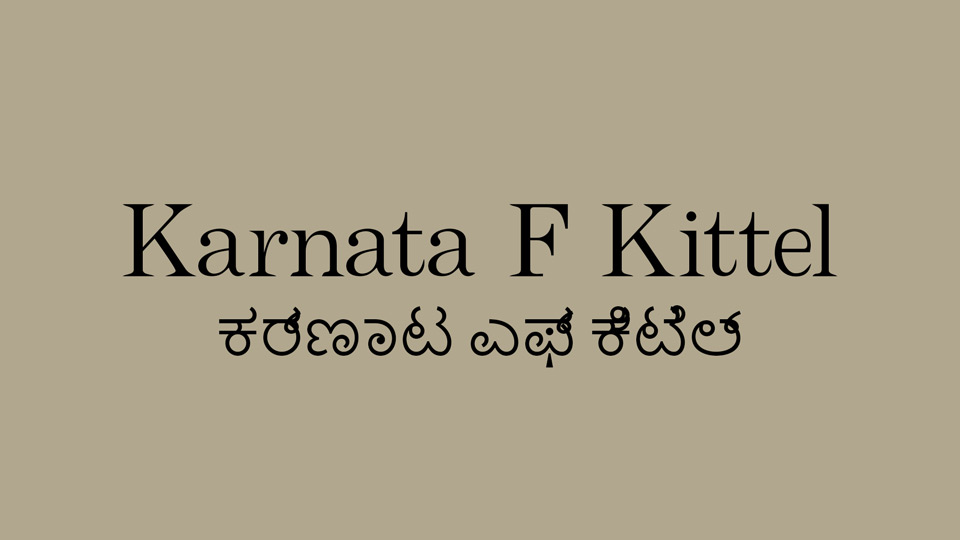
Karnata F Kittel font, a digital revival of an existing foundry typeface created in erstwhile Basel Mission Press Mangalore between 1830-1900. This font is an attempt to re-create the typeface that resembles a lot with the Kannada Long primer No 2.